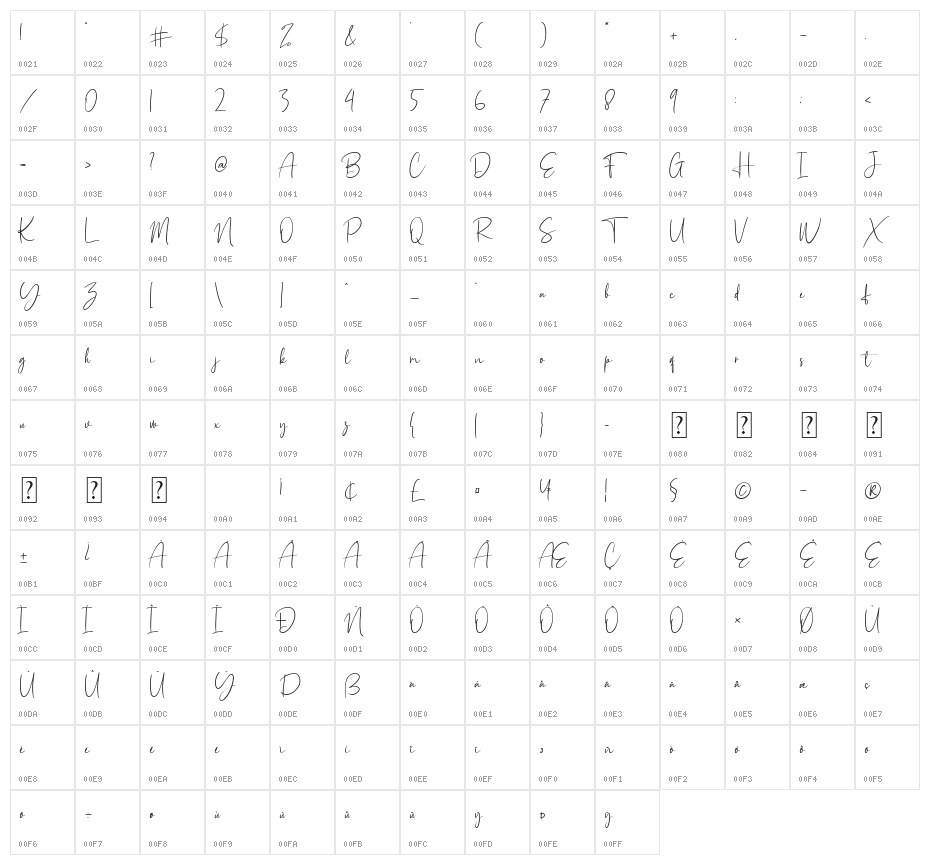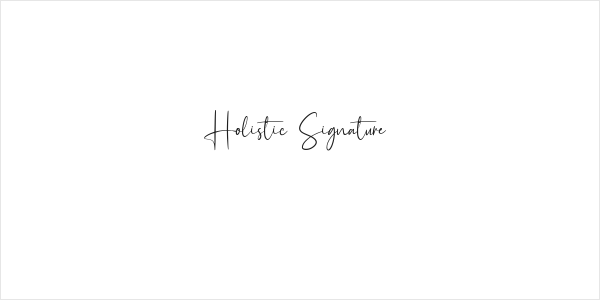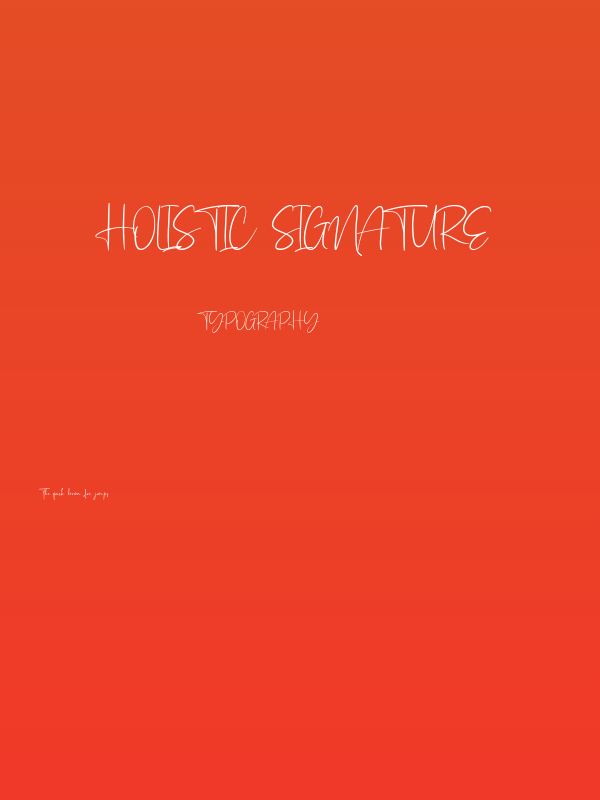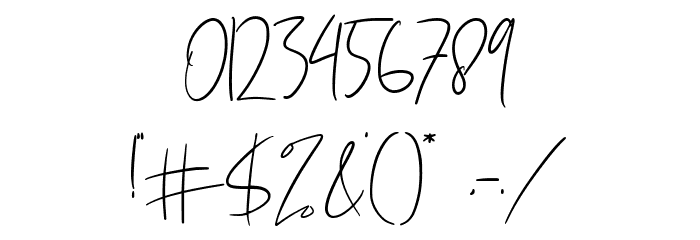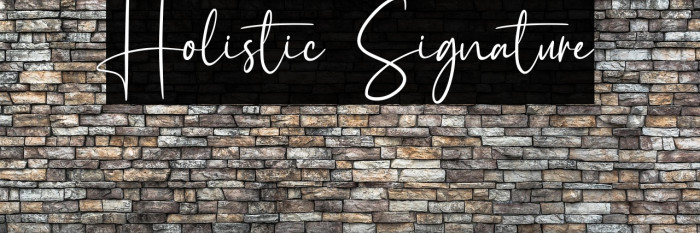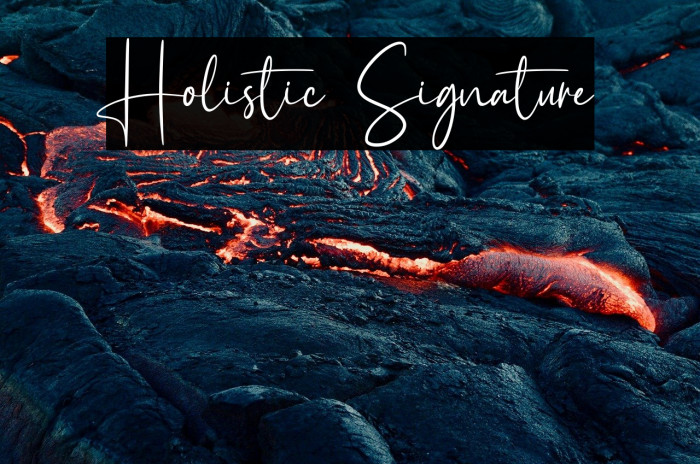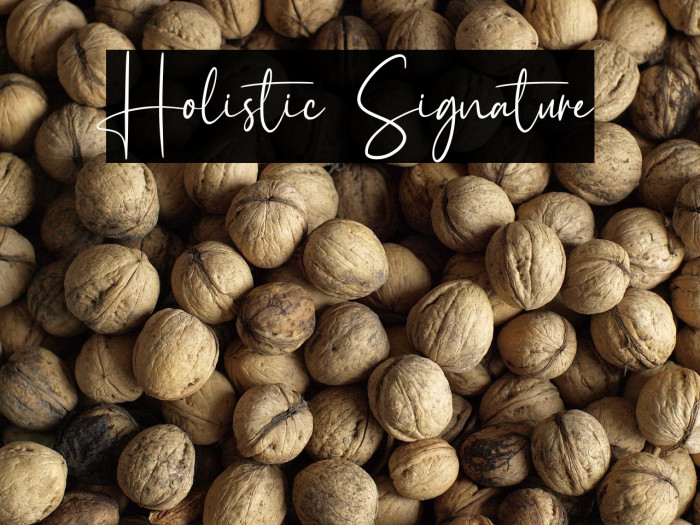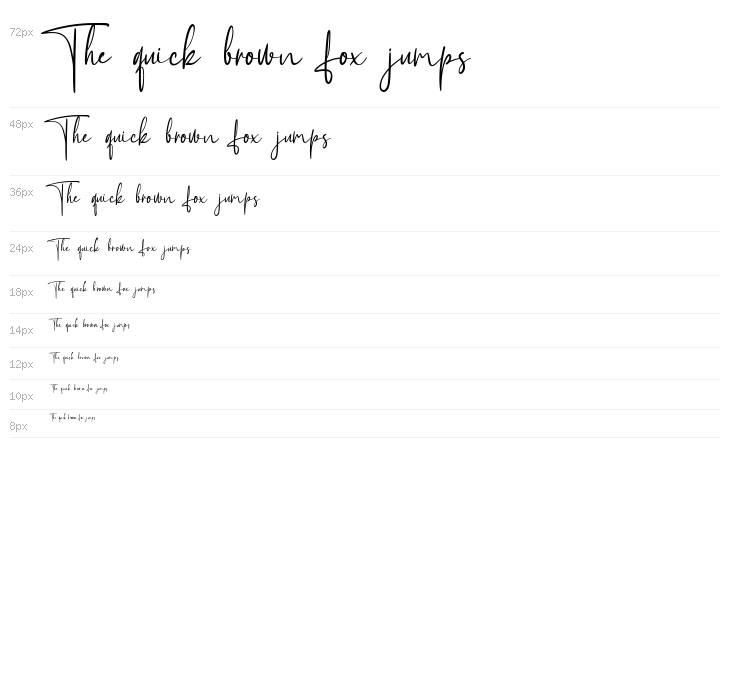
Holistic Signature Font
Holistic Signature Description
This font exudes a handwritten, cursive style with a modern flair. The letters are elegantly elongated with smooth, flowing lines that mimic the natural motion of handwriting. The uppercase characters are bold and expressive, while the lowercase letters maintain a delicate and graceful appearance. The numerals and special characters are consistent with the overall style, adding a touch of sophistication. The font's design is perfect for creating a personal and intimate feel, making it ideal for projects that require a touch of elegance and individuality.